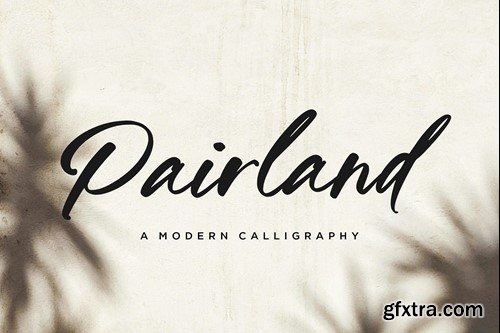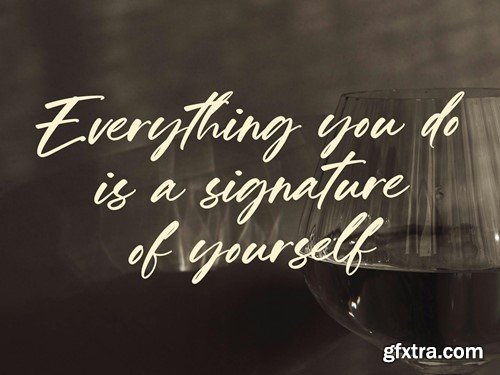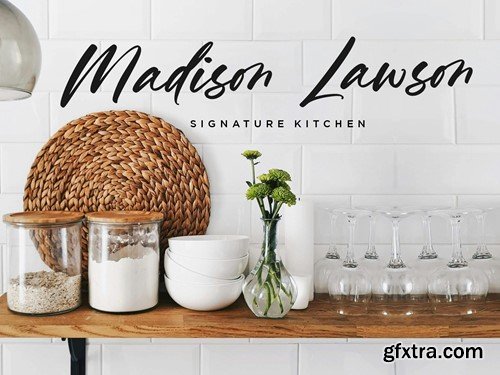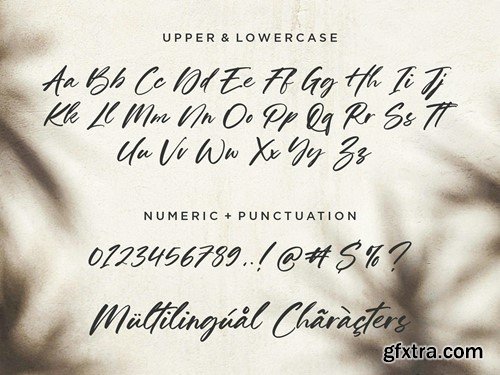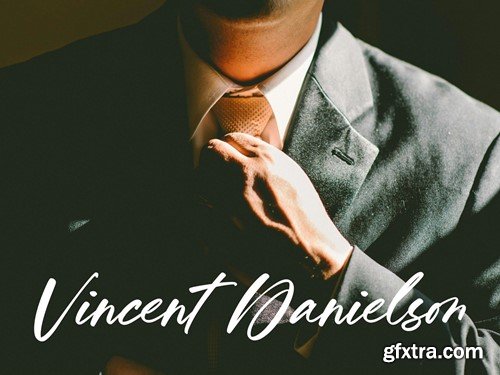
Pairland Script Font
Introducing by Balpirick Studio! Pairland is a Modern Calligraphy Font that’s perfect for adding a touch to your design projects! Crafted with care and attention to detail, this font is incredibly versatile and can be used for a range of design projects, including logos, branding, invitations, and more. Its modern, handwritten style gives it a unique character that’s sure to make an impact. Included TTF, OTF and WOFF Files! Also multilingual support Thank you!